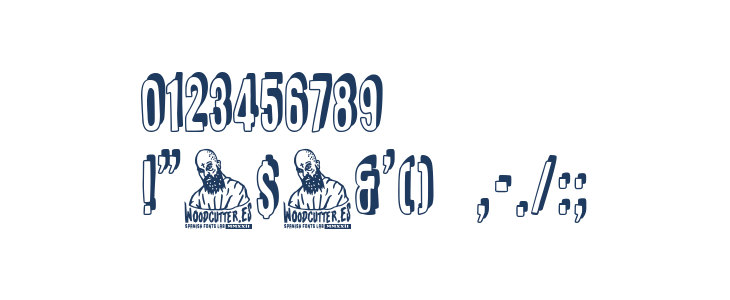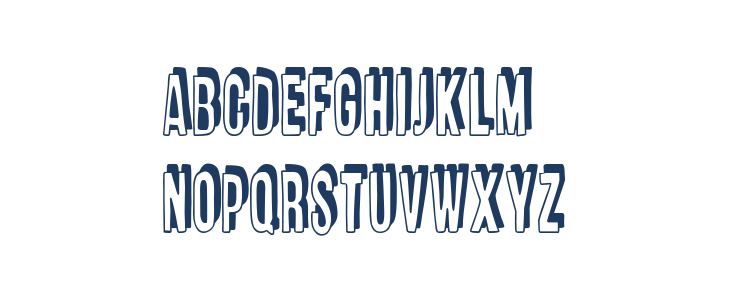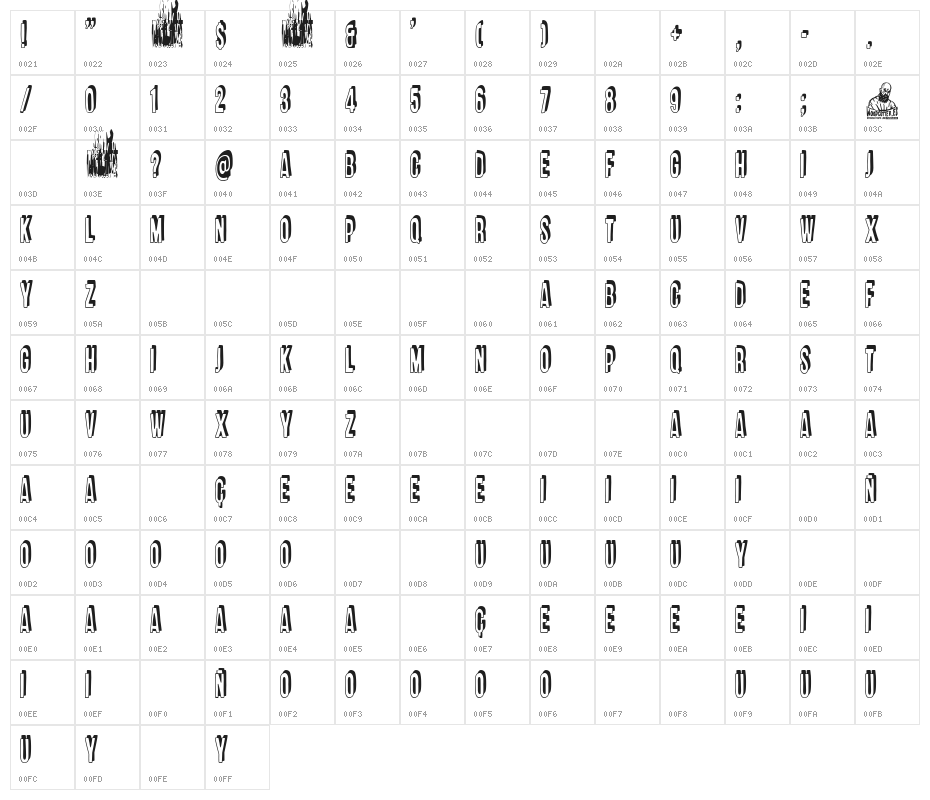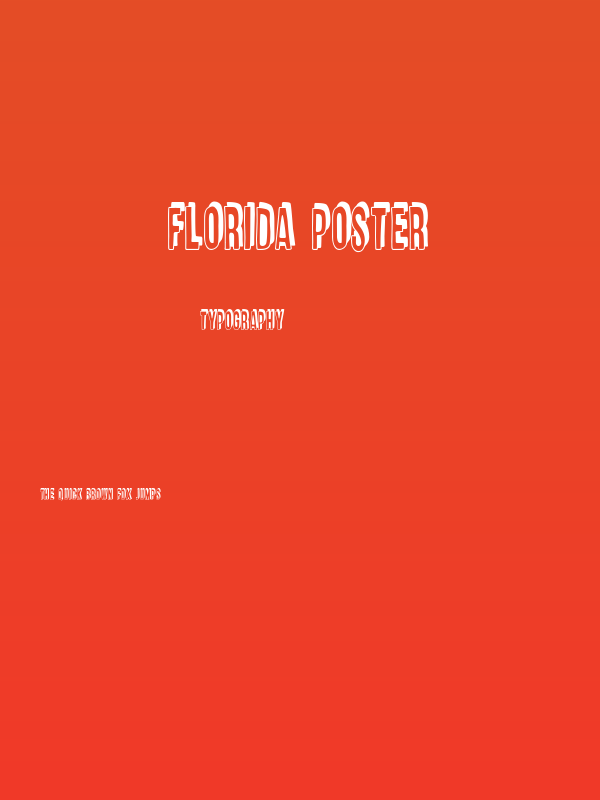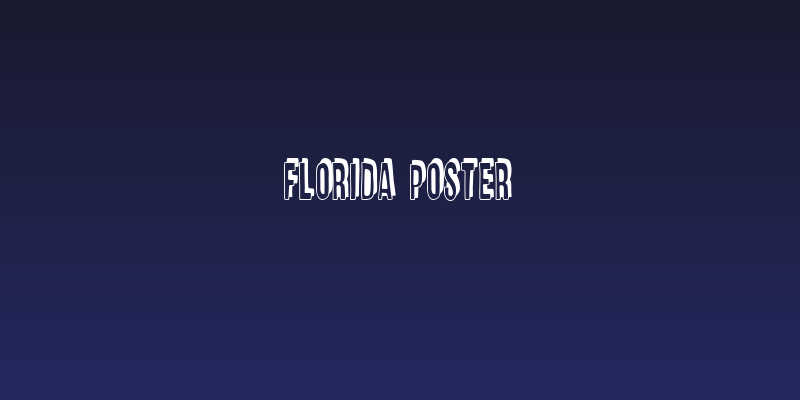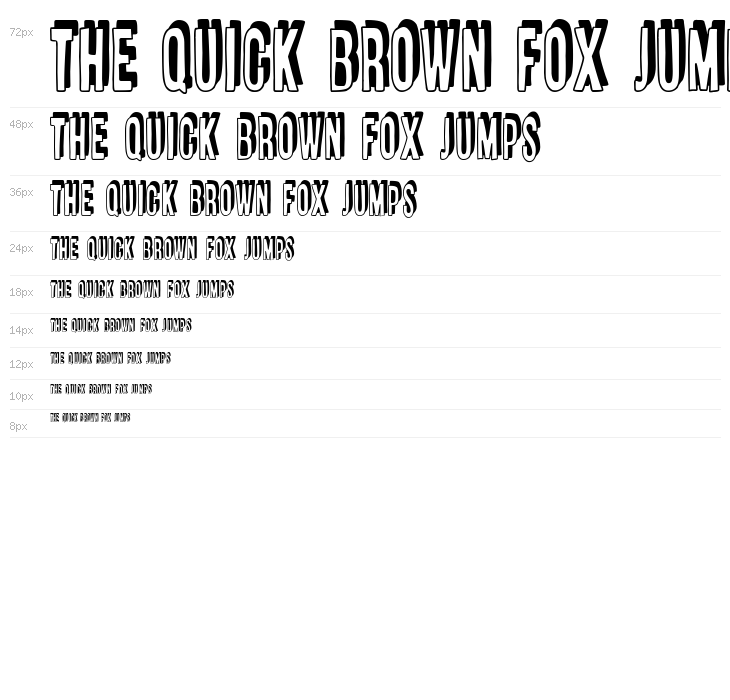
Florida Poster Font
Florida Poster Description
| Overall Style | Decorative, Playful, Retro |
| Use Case | Headlines, Posters, Logos |
| Proposed Projects | Posters, event flyers, signage, comic titles, childrenΓ’β¬β’s book covers, branding for entertainment or casual products. |